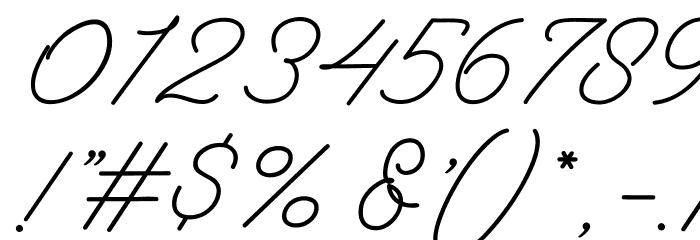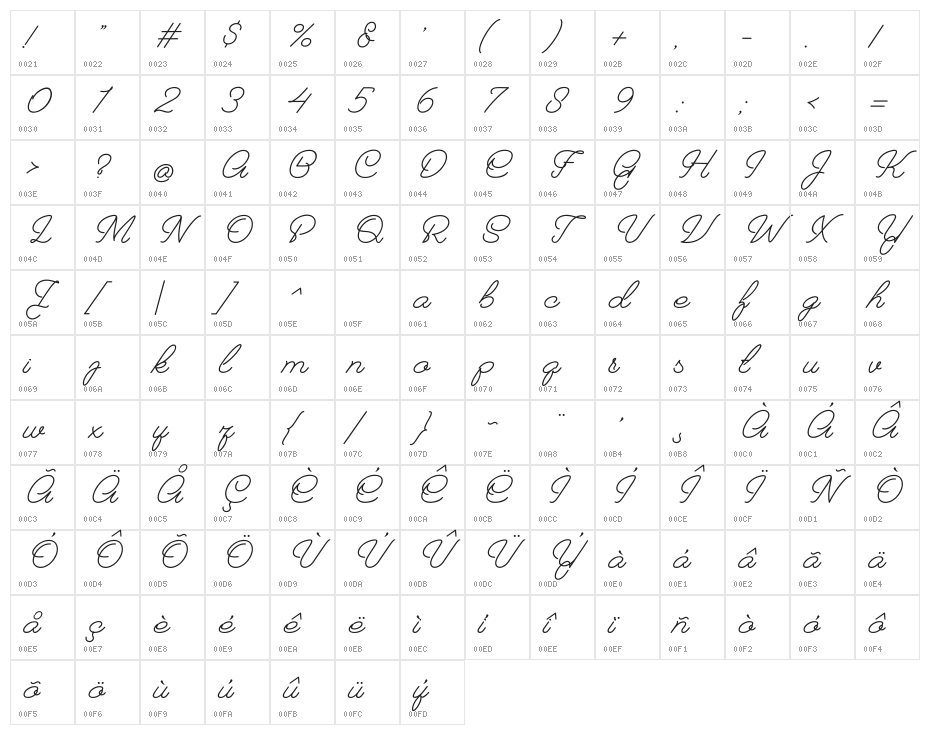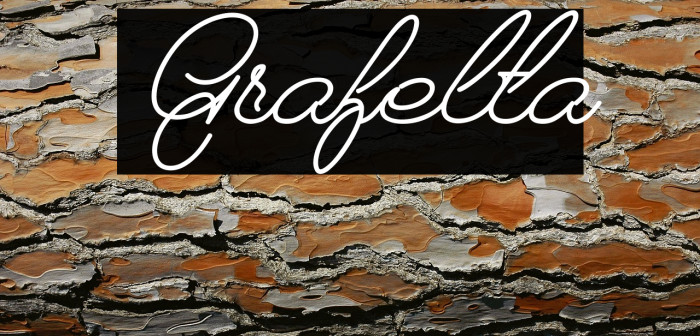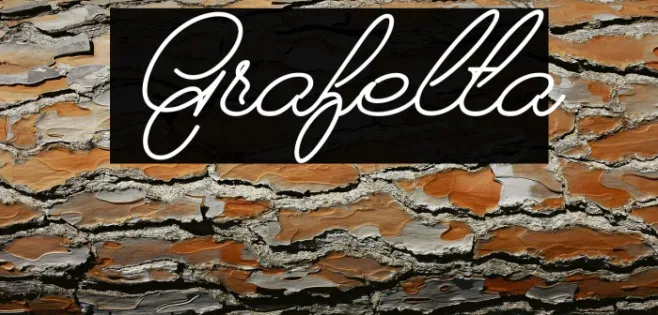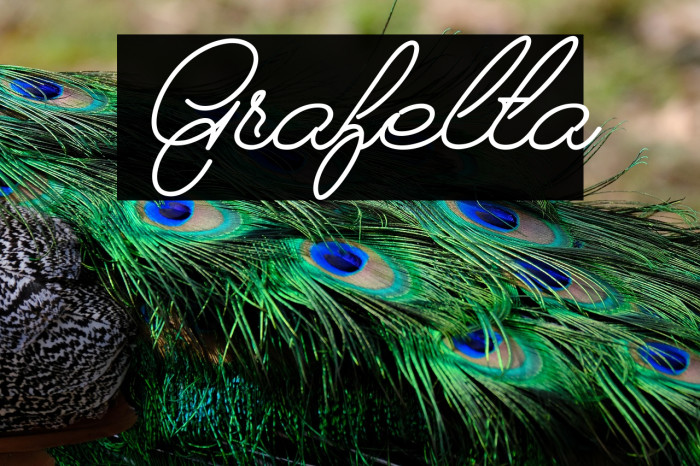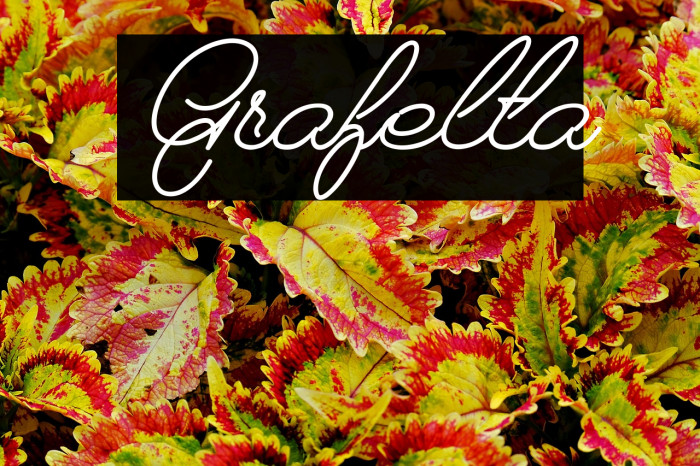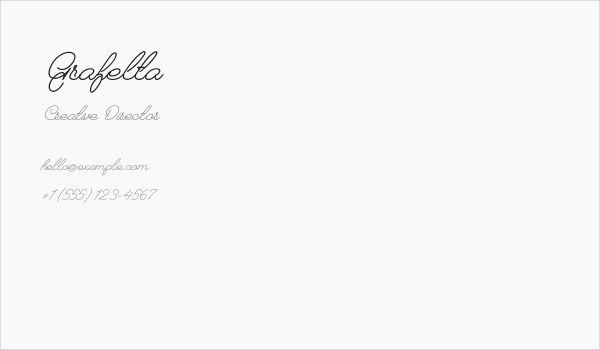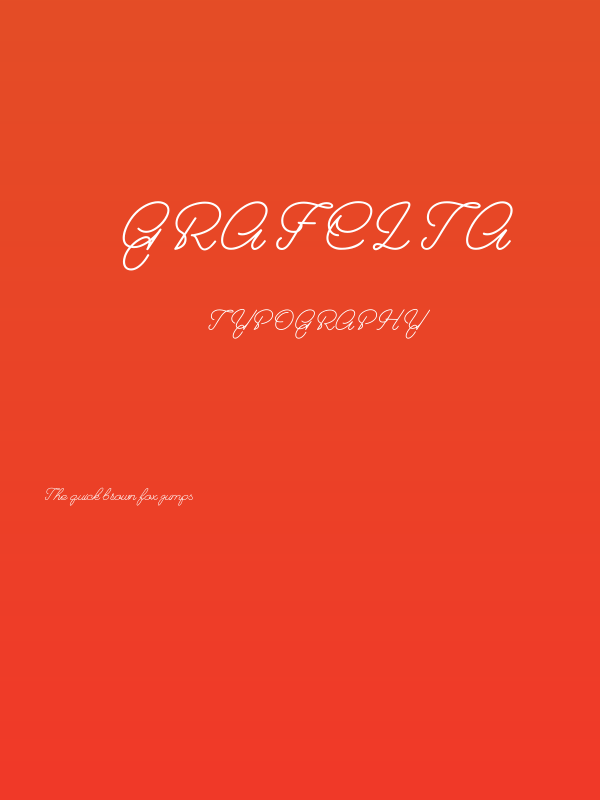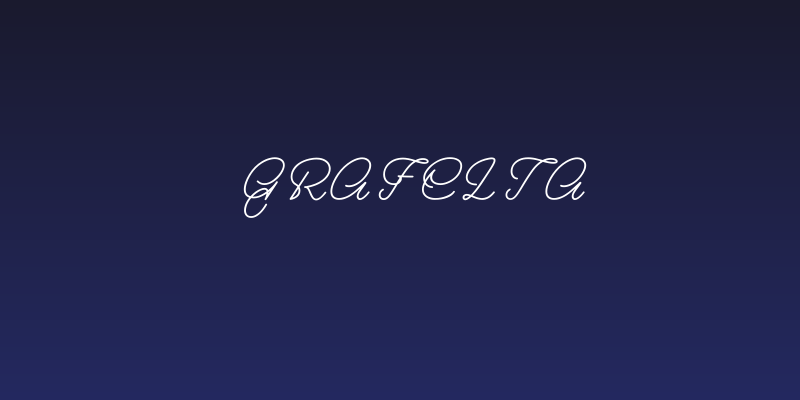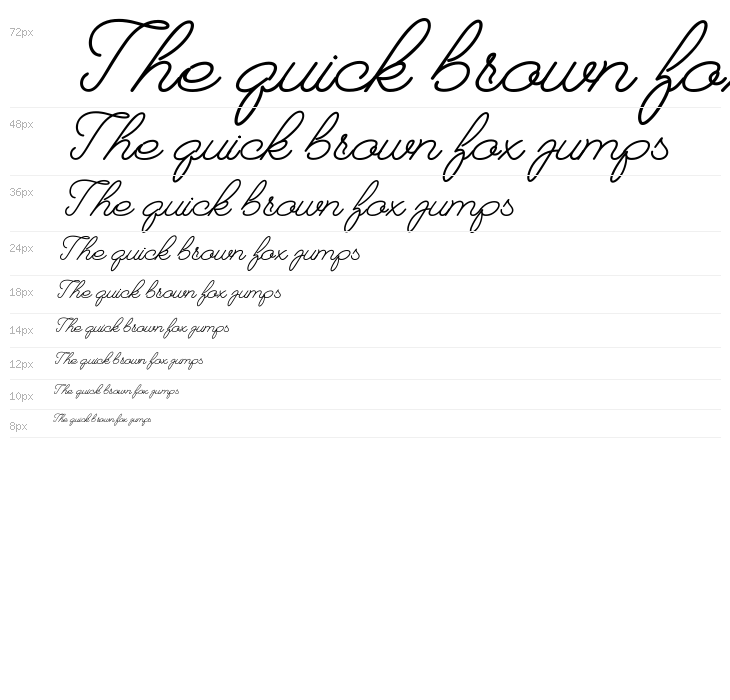
Grafelta Font
Grafelta Description
This elegant script font features a flowing, cursive style that exudes sophistication and grace. The letters are interconnected with smooth, sweeping strokes, creating a seamless and fluid appearance. The uppercase characters are slightly more ornate, with subtle flourishes that add a touch of flair, while the lowercase letters maintain a consistent rhythm and balance. The numerals are designed to complement the letterforms, with a similar cursive style that ensures harmony throughout the font. Special characters are thoughtfully integrated, maintaining the overall aesthetic. This font is perfect for projects that require a personal, handwritten touch, such as invitations, greeting cards, or branding materials.